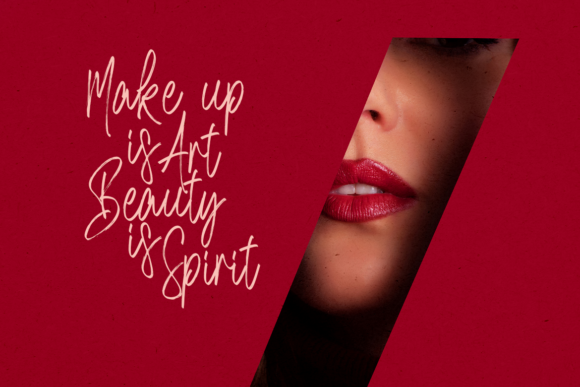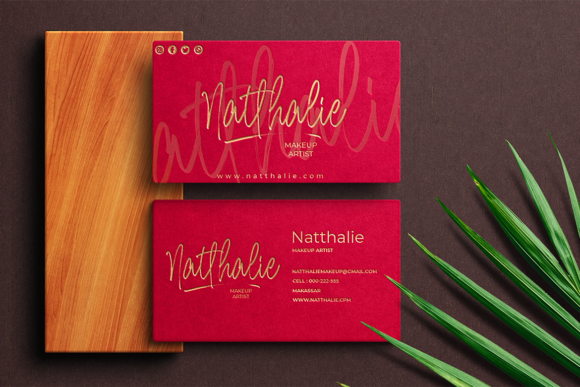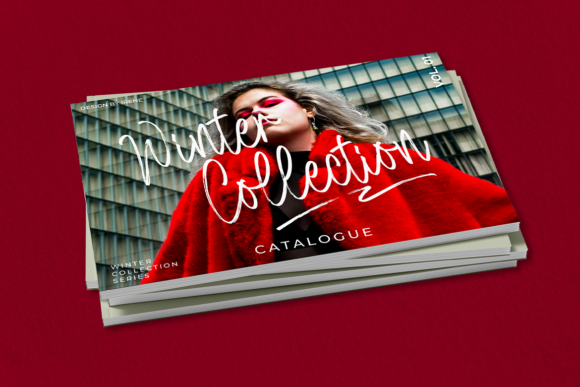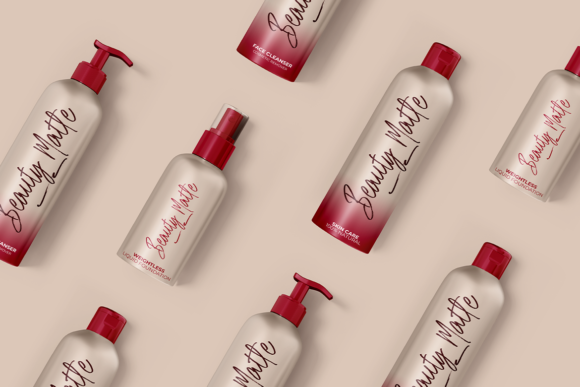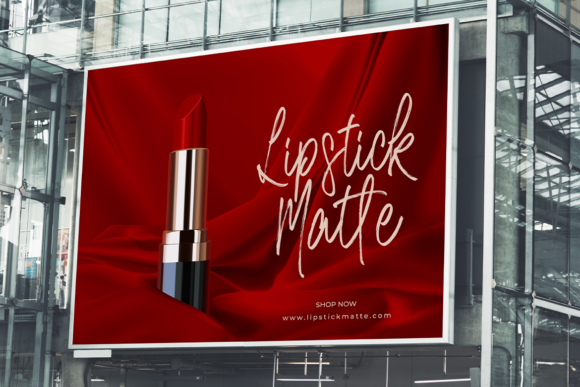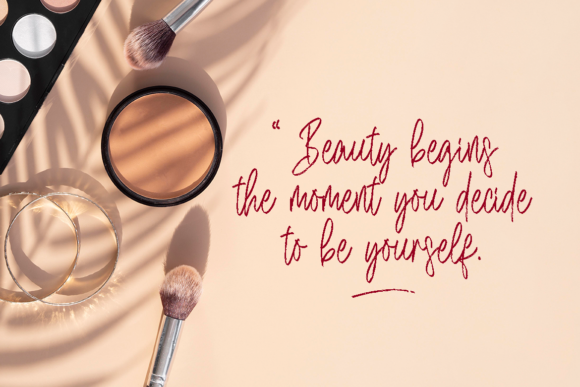
The Blissful World of High Bliss Font
Have you ever been in the middle of a design project, and suddenly, you’re stuck on finding the perfect font? I recall a recent experience where I was working on a branding project for a sweet treats bakery, and I just couldn’t find a font that captured the right amount of whimsy and elegance. That’s when I stumbled upon the High Bliss font, and it completely transformed my design. In this article, I’ll share my journey with this lovely brushed handwritten font and explore its features, uses, and alternatives.
A Personal Review of High Bliss Font
I’m excited to share my honest review of High Bliss font, and here’s what I love about it:
• ✨ Delicate and sweet style that’s perfect for designs that require a touch of elegance
• ✅ PUA encoded, making it easy to access all glyphs and swashes
• 💫 Features a range of OpenType features, including stylistic alternates and ligatures
• 🎨 Versatile and can be used for various design projects, from branding to crafting
While High Bliss font is a beautiful addition to any design project, there are a few small quirks to be aware of:
• ⚠️ Some users may find the font a bit too delicate for certain design applications
• 🤔 Limited availability of uppercase letters, which may require additional design workarounds
The Story Behind High Bliss Font
High Bliss font was created with the intention of capturing the essence of a carefree and joyful design style. The font’s designer aimed to create a font that would evoke feelings of happiness and serenity, perfect for designs that require a touch of elegance and whimsy. With its delicate and sweet style, High Bliss font is sure to bring a smile to your face and inspire your creativity.
What is High Bliss font? High Bliss font is a lovely brushed handwritten font featuring a delicate and sweet style.
Is High Bliss font PUA encoded? Yes, High Bliss font is PUA encoded, making it easy to access all glyphs and swashes.